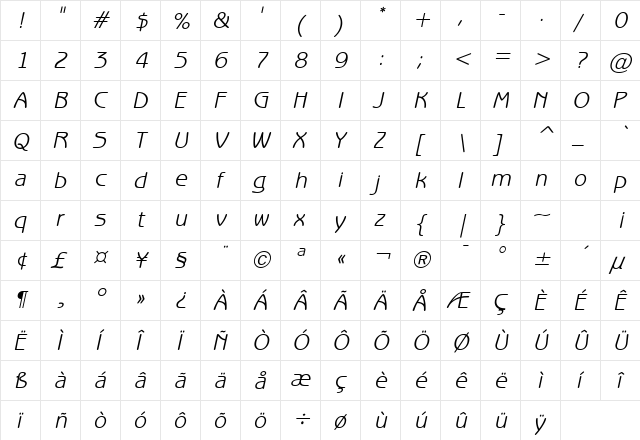
Beagle Italic
Design Context for Beagle Typeface
Beagle offers clean, dependable letterforms without strong stylistic allegiance, making it a practical choice for designers who need flexibility. Its italic angle brings a sense of urgency and motion to the letterforms.
Pro Tip: Try Beagle for annotation and caption copy alongside an upright companion — the contrast in angle creates a dynamic but ordered typographic system.